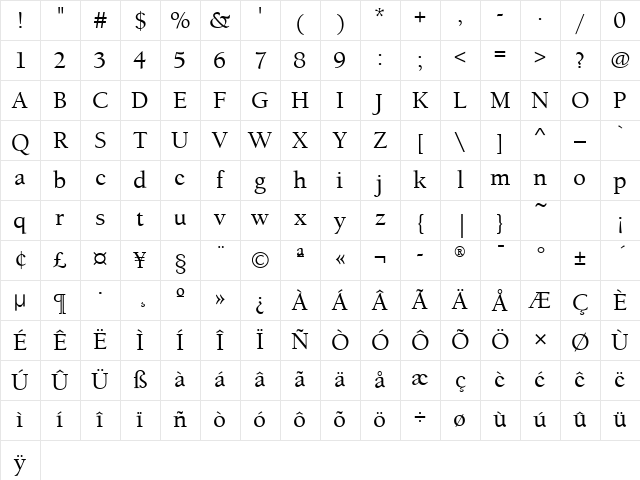
BerkeleyOldMdITC Medium
Foundry: E+F Designstudios. ITC Berkeley OldStyle is a registered trademark of International Typeface Corporation
Design Context for BerkeleyOldMdITC
BerkeleyOldMdITC is a composed and adaptable typeface that performs quietly and consistently across a wide range of design contexts.
Who designed the BerkeleyOldMdITC Medium font?
This font was published by E+F Designstudios. ITC Berkeley OldStyle is a registered trademark of International Typeface Corporation. Check the technical specs section for copyright and designer details.